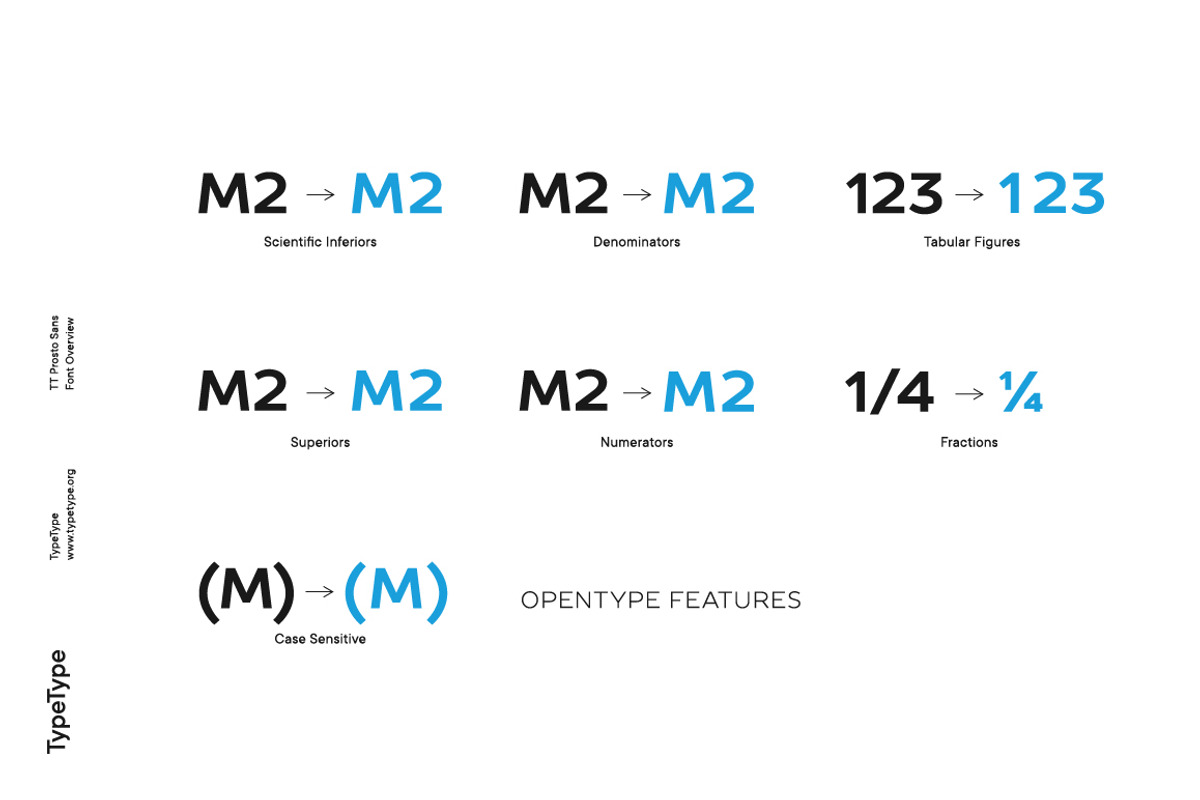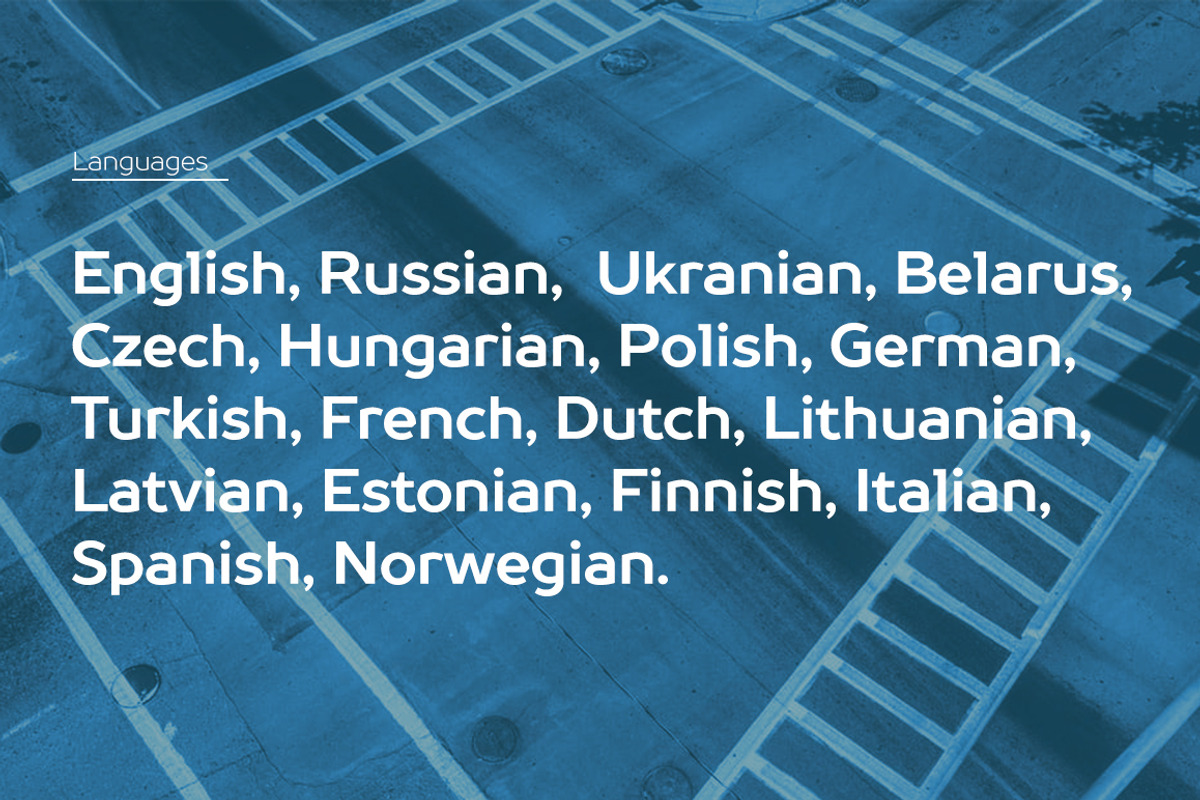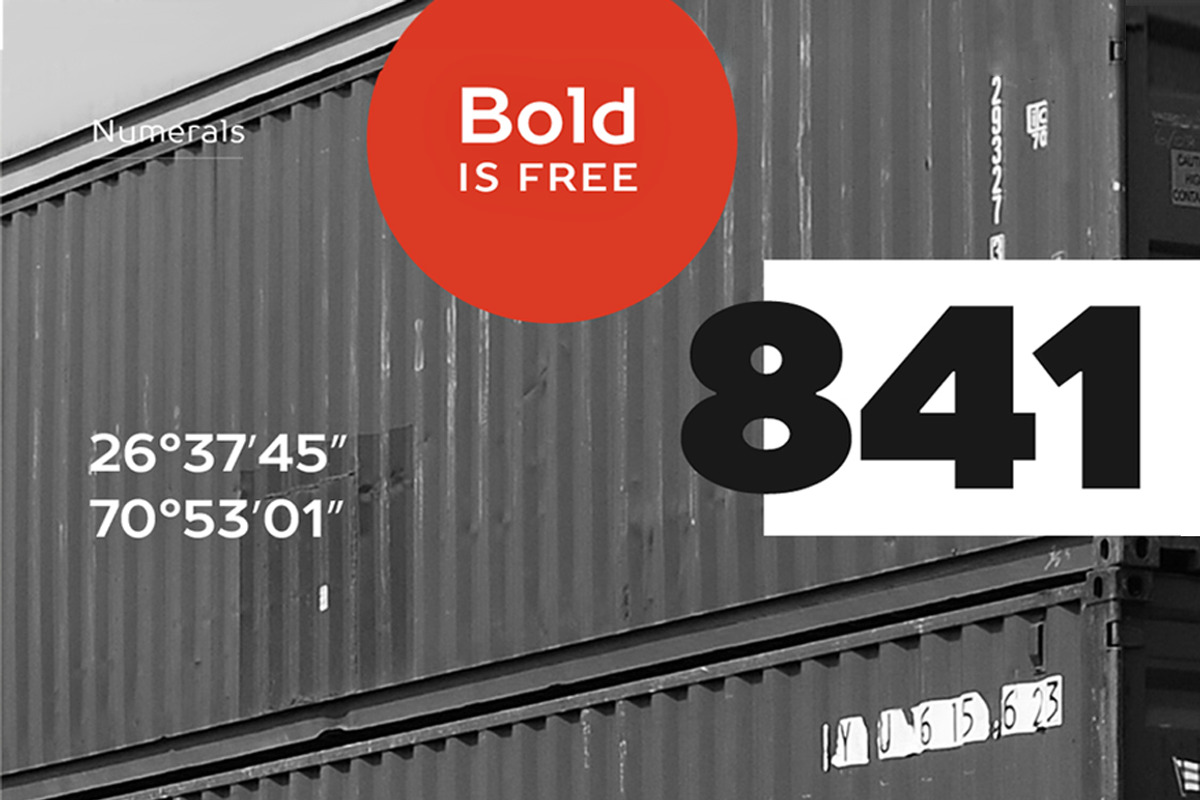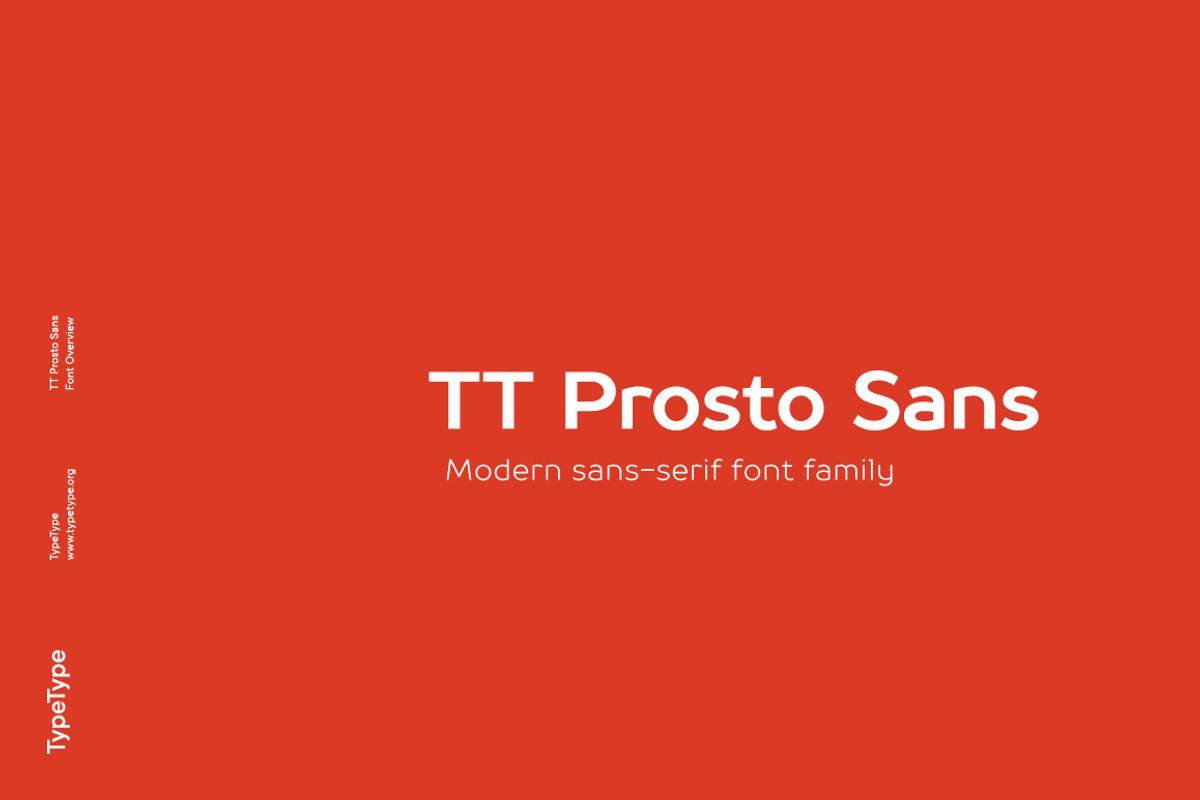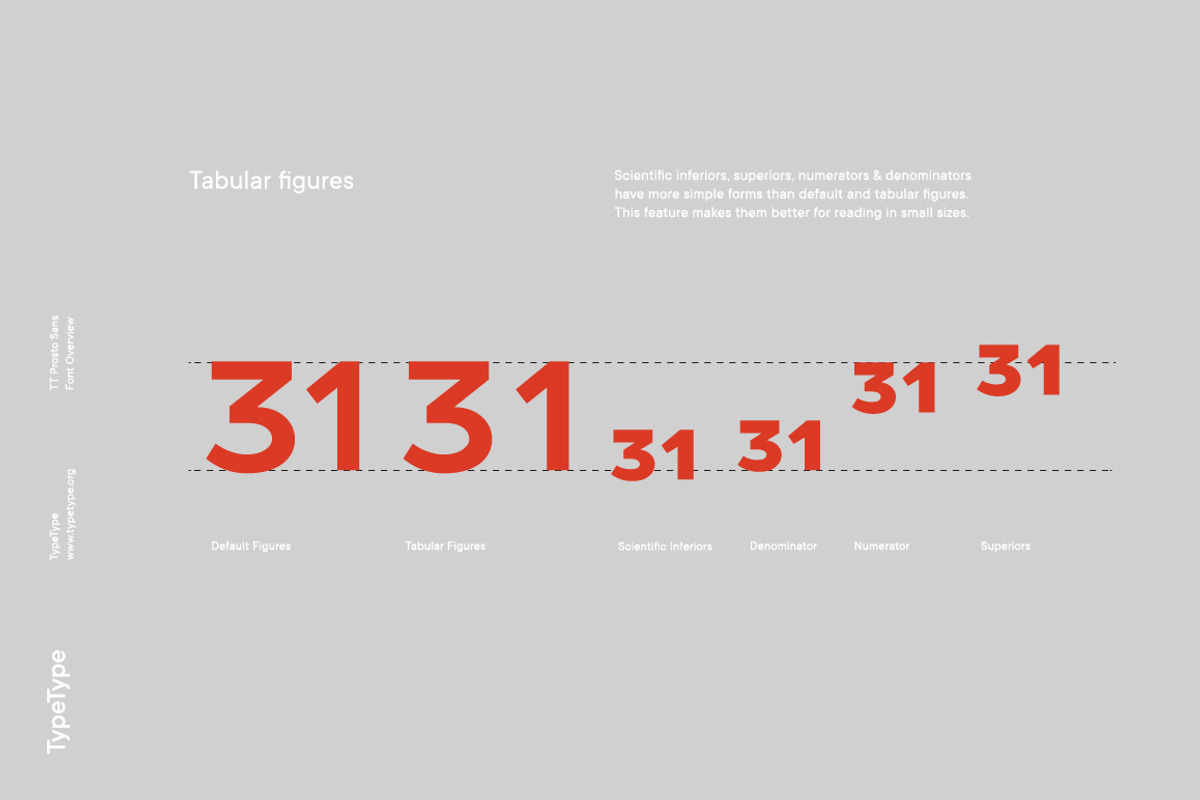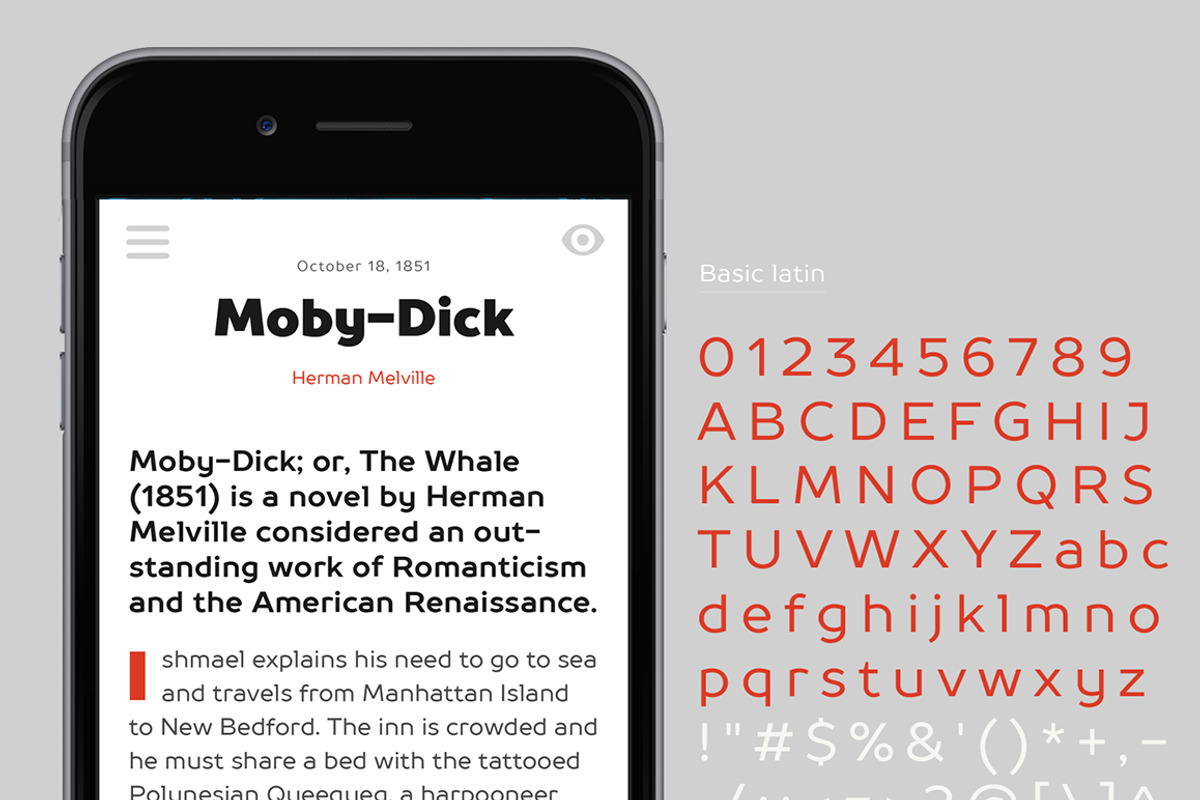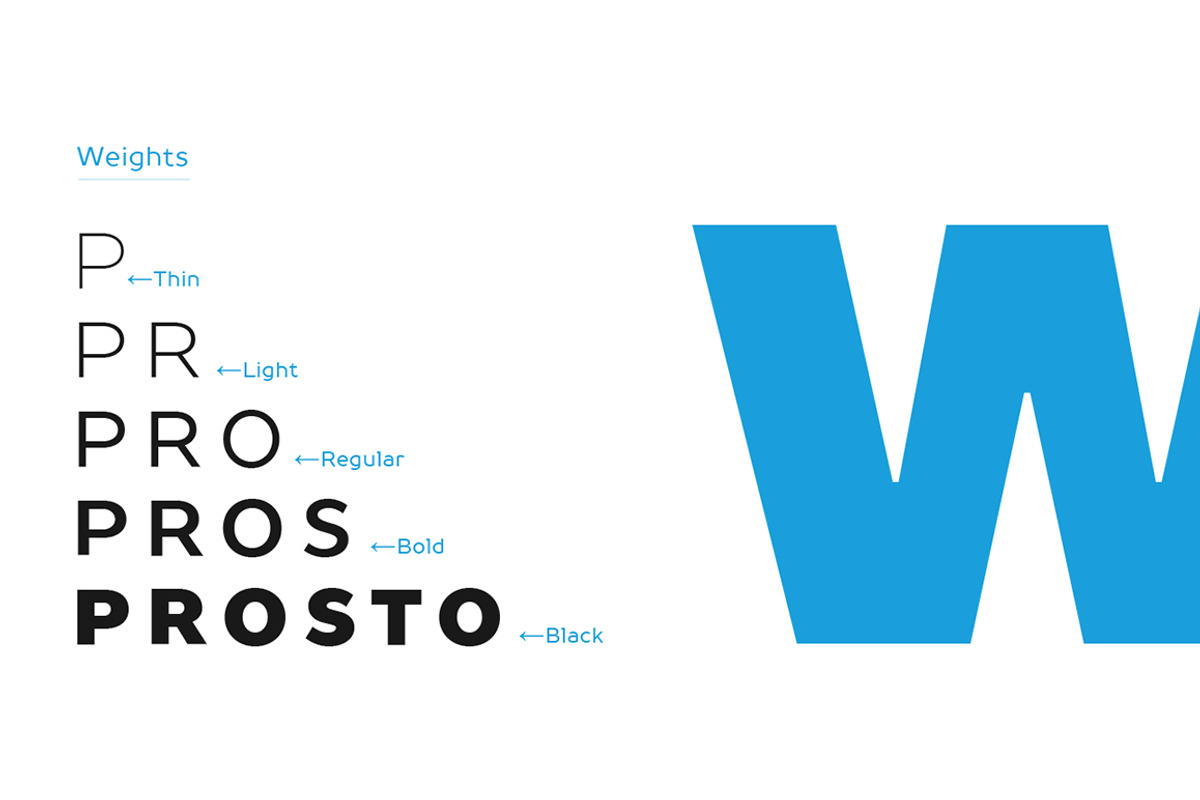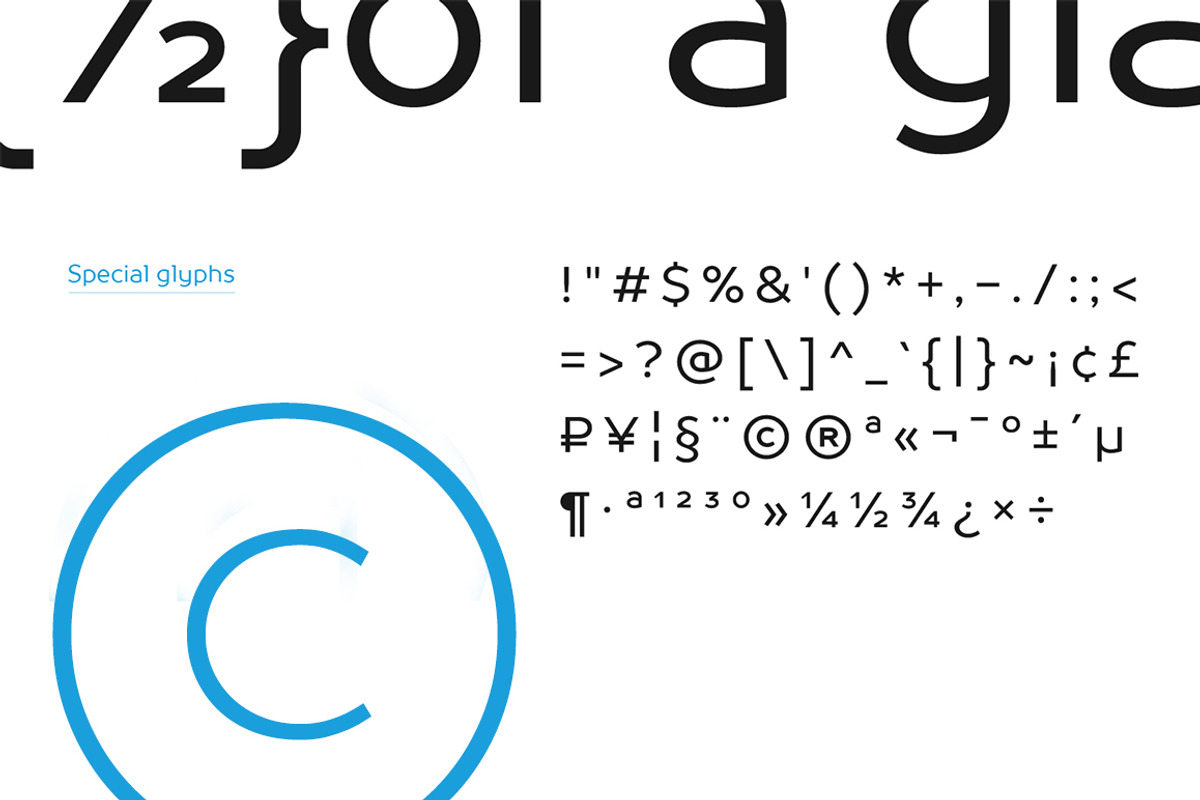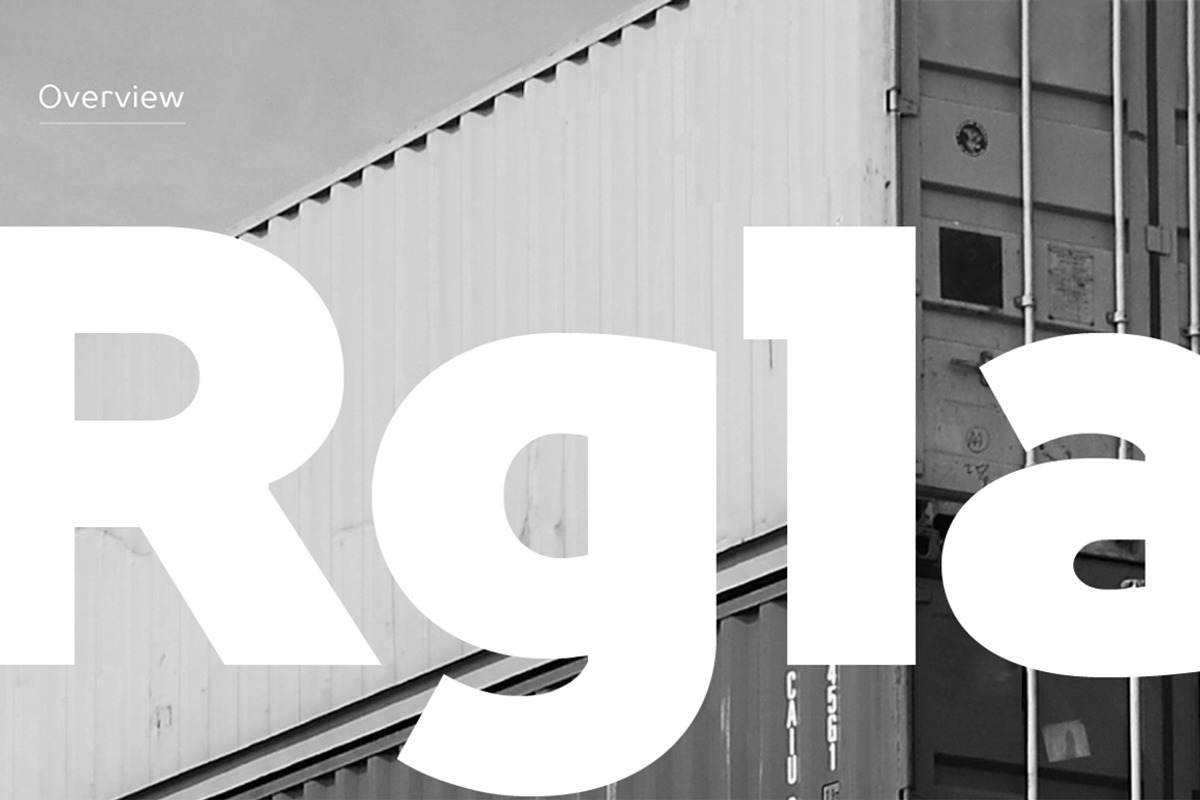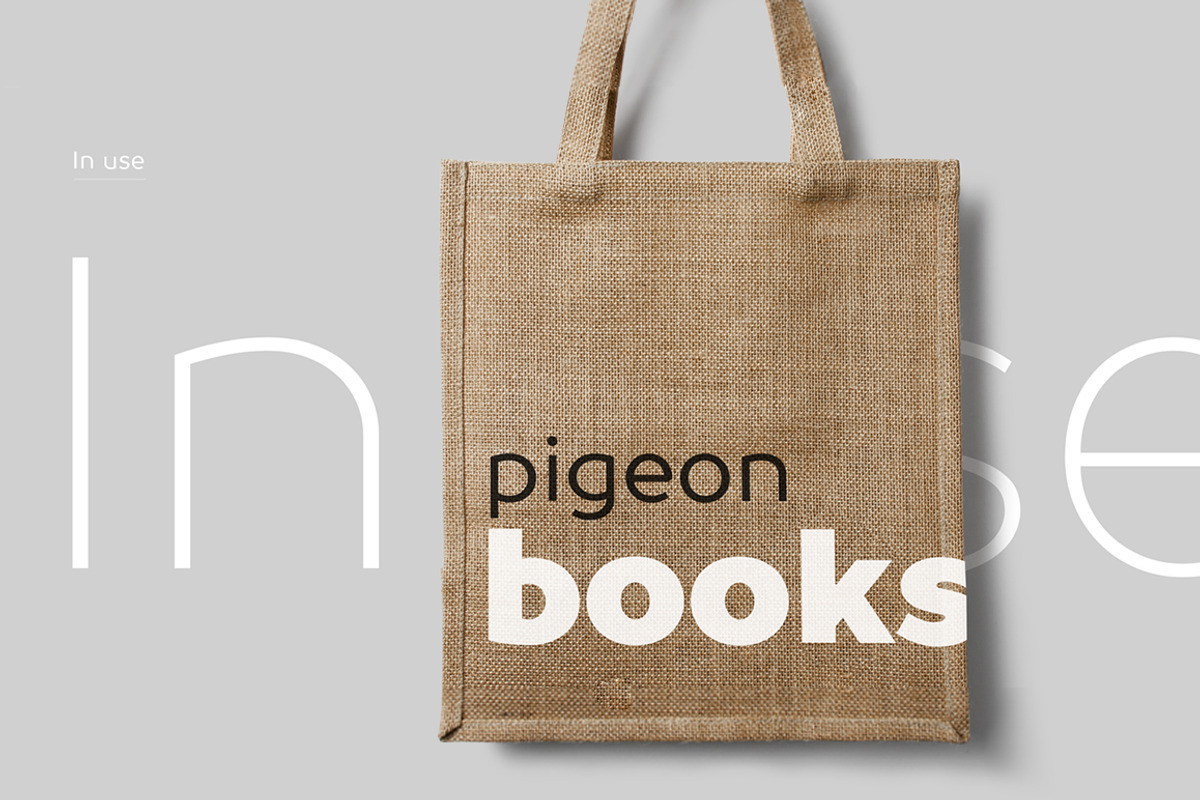
TT Prosto Sans
What’s new in update 1.010:
- Case Sensitive Forms
- Tabular Figures
- Fractions
- Numerator
- Denominators
- Superiors
- Scientific Inferiors
TT Prosto Sans—this font family for any occasion. You can use these fonts almost everywhere. The modern open grotesque forms and classic font family formula: Thin, Light, Regular, Bold, Black and Italics. TT Prosto Sans is the assistant to work for any projects.
- 5 weights & 5 Italics
- Supports 160 languages (incl. Cyrillic)*